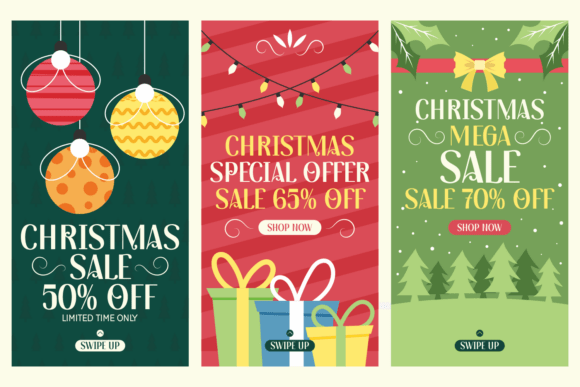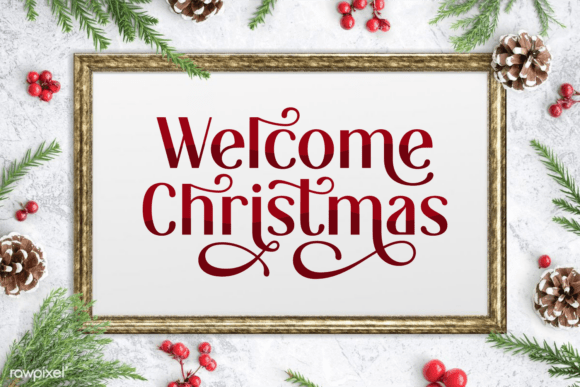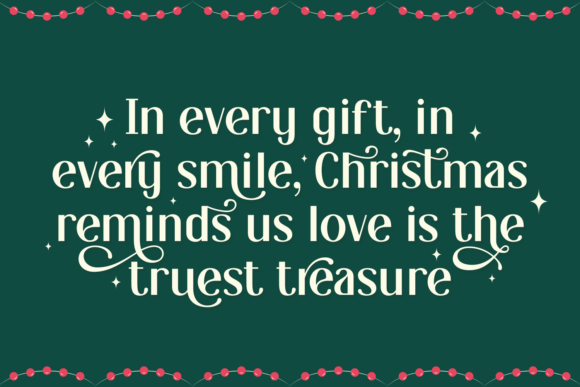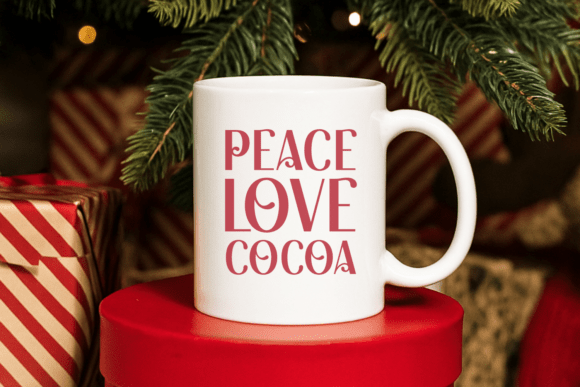
Serene Christmas Font
Bring the magic of the holidays into your designs with Serene Christmas, a stylish and modern sans-serif font perfectly blended with festive elegance. Each curve and swirl is designed to capture the warmth, sparkle, and joyful spirit of Christmas time.
Whether you’re crafting holiday cards, festive invitations, branding, or cozy winter quotes, Serene Christmas will make every word shine with charm. Its graceful letterforms, smooth flow, and decorative alternates make it a must-have font for your Christmas collection!
Spread cheer and style this season with Serene Christmas – where modern charm meets festive magic.